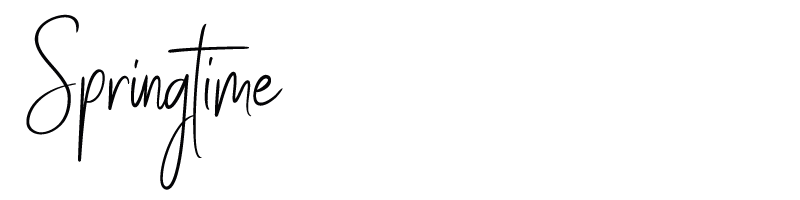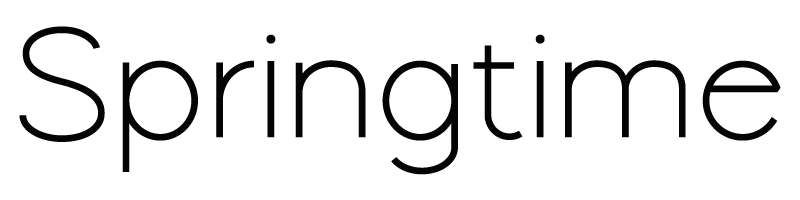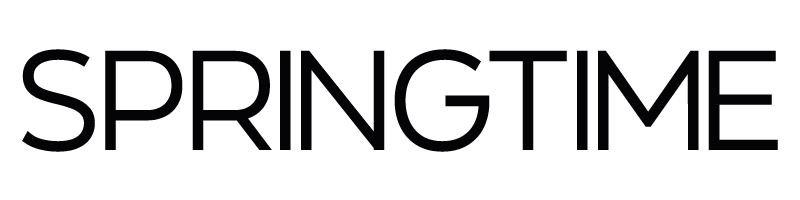
20 Fonts Perfect for Spring
Here are some of my favorite fonts that give me a springtime vibe! I’m including 10 totally commercial-free fonts and 10 paid fonts. These can be used on book covers, logos, promo or social media graphics, and other marketing materials.
01. Modestic Display Bold — a gorgeously modern serif font that’s available free from 1001 Fonts.
02. Rustic Wedding — a modern calligraphy font available from Creative Fabrica.
03. Happy Memories — a playful and whimsical handwritten font that’s available for free from 1001 Fonts.
04. Hello — a delicate, cute, and stylish handwritten font available from Creative Fabrica.
05. Stay Classy — a beautifully feminine script font available for free from 1001 Fonts.
06. California — a beautiful handwritten font available from Creative Fabrica.
07. ZT Yaglo Thin — a dynamic and expressive display font available for free from 1001 Fonts.
08. Easter — a stylish, contemporary handwritten font available from Creative Fabrica.
09. Port Credit — a clean geometric font available for free from 1001 Fonts.
10. Castilla — a sweet, relaxed, and timeless handwritten font available from Creative Fabrica.
11. Brigovin — an elegant calligraphy script font available for free from 1001 Fonts.
12. Bright — a stylish, modern retro serif font available from Creative Fabrica.
13. Sparky Stones — a whimsical handwritten serif font available for free from 1001 Fonts.
14. British Green — a font duo consisting of a perfectly paired script and a serif available from Creative Fabrica.
15. Radith — a handwritten script font available for free from 1001 Fonts.
16. Sunday Farmhouse — a sans serif font with a cute and quirky shape that’s available from Creative Fabrica.
17. Louis George Cafe Light — a basic but sleek sans serif font available for free from 1001 Fonts.
18. Japandi — a minimalistic lightweight sans serif font with a clean and crisp design that’s available from Creative Fabrica.
19. Bettina Signature — a stylish signature handwritten font available for free from 1001 Fonts.
20. Marshmallow — a stunning sans serif font available from Creative Fabrica.